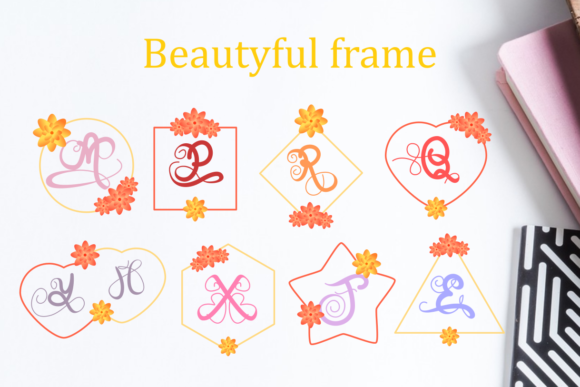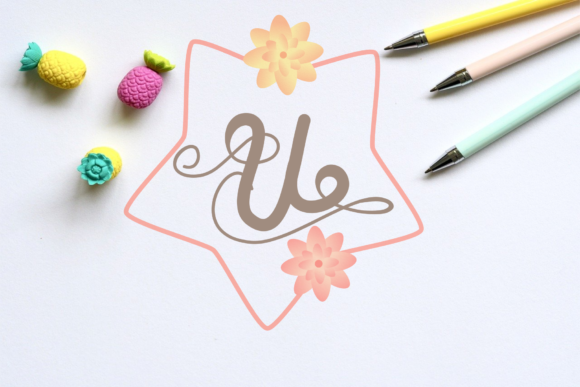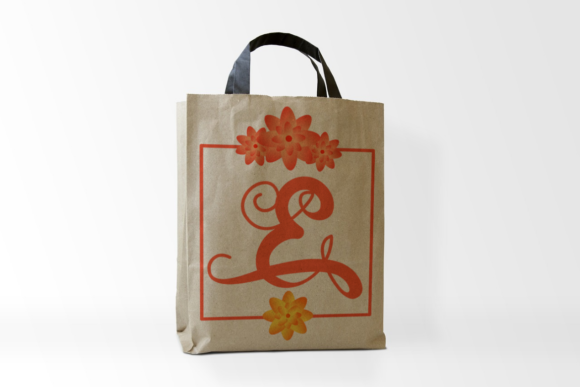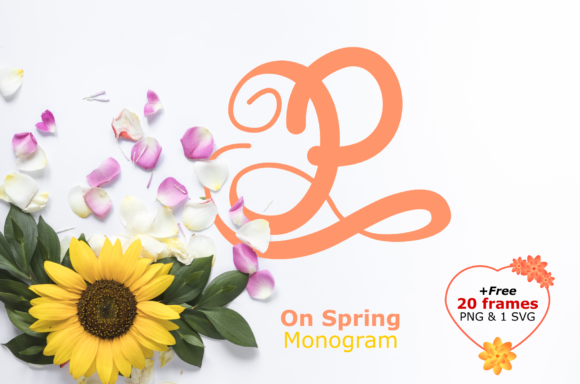
Introduction to On Spring Font
On Spring is an elegant display font that features sweet swashes.
It will elevate a wide range of design projects to the highest level, be it branding, headings, wedding designs, invitations, signatures, logos, labels, and much more .
Key Features of On Spring Font
Why Choose On Spring Font?
On Spring Font offers exceptional quality and versatility, making it a valuable addition to your design toolkit. Whether you’re creating for personal projects or commercial use, On Spring Font delivers professional results.